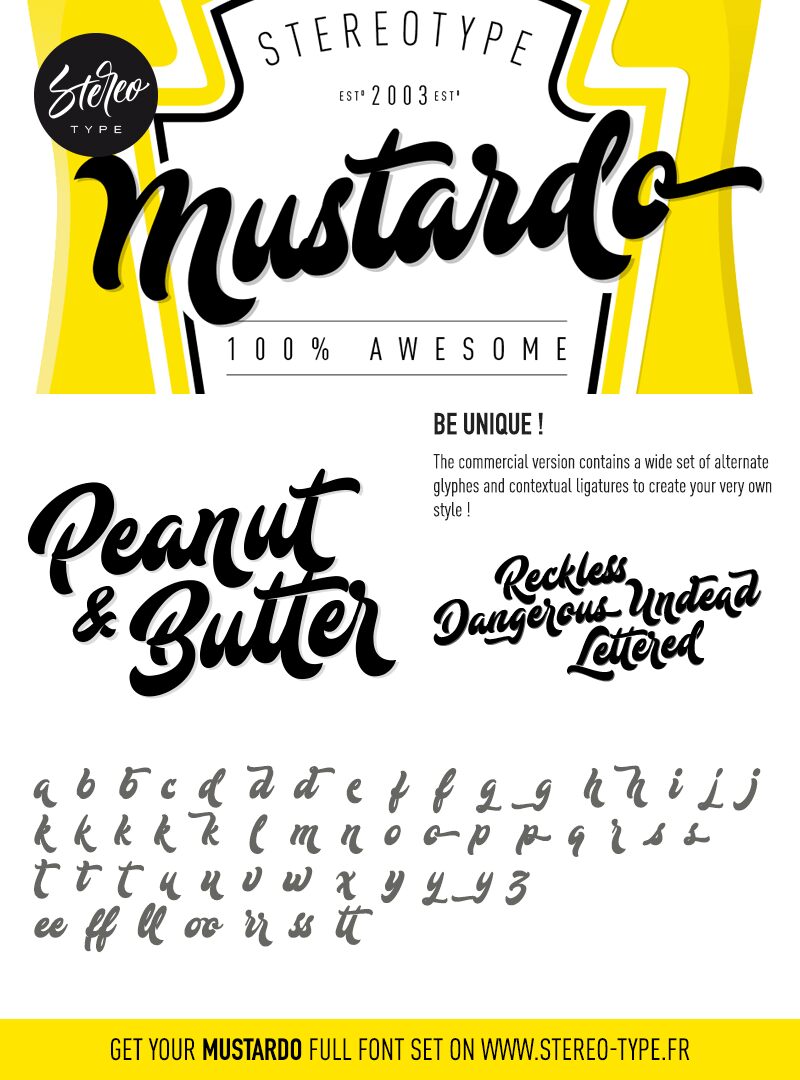
Mustardo
Mustardo is a bold, brush-style font that exudes a captivating retro flair. Designed by StereoType, this font showcases a striking cursive aesthetic with its fluid, script-like strokes. The bold weight and distinct character shapes lend Mustardo a strong, eye-catching presence, making it an excellent choice for a variety of design applications, from vintage-inspired branding and packaging to attention-grabbing headlines and logos.
Its retro charm and versatility make Mustardo a versatile tool in the hands of discerning designers seeking to infuse their projects with a touch of nostalgic allure.
The commercial version contains a wide set of alternate glyphes and contextual ligatures to create your own style!